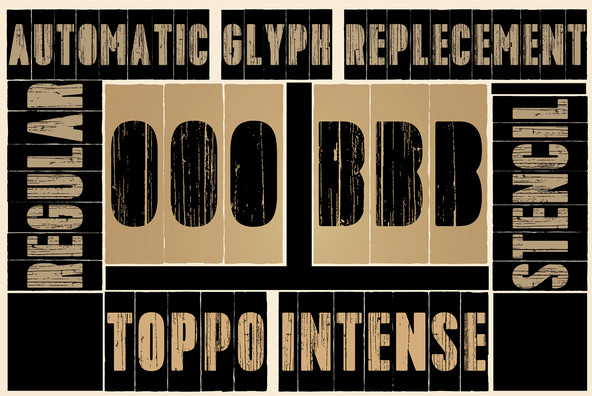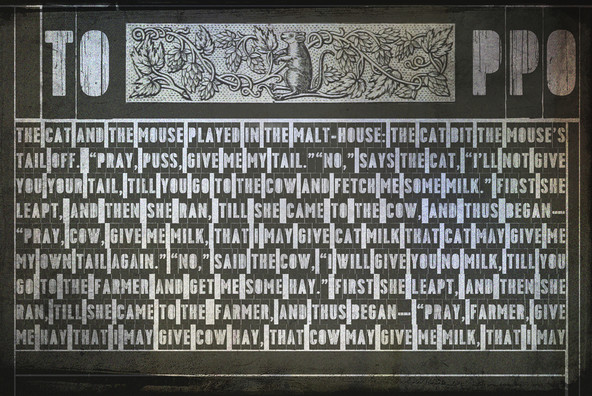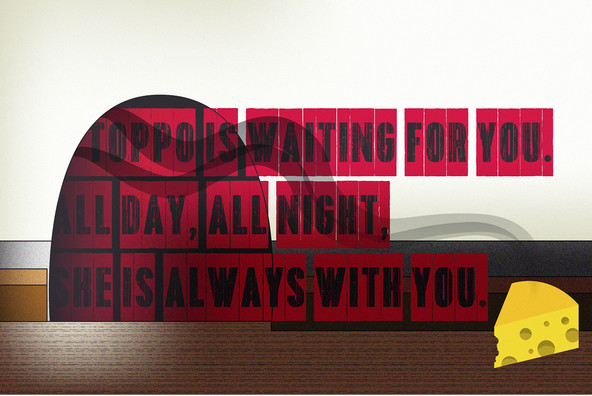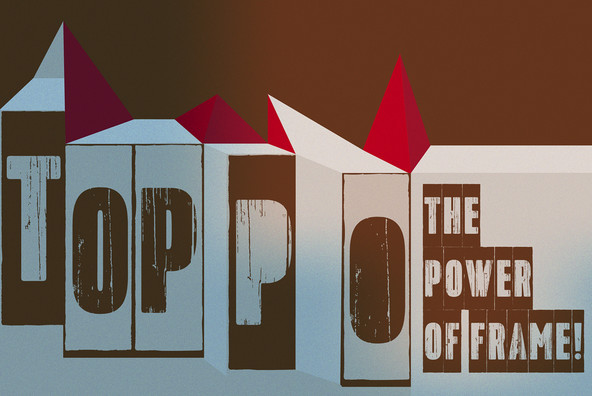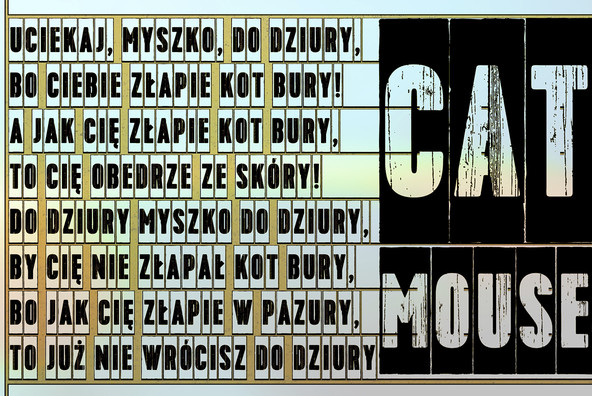
Toppo Font
Toppo Regular
Toppo Frame
Toppo Negative
Toppo Stencil
Toppo Stencil Frame
Toppo Stencil Negative
To design a font Toppo I was inspired by a You And Me
Monthly published by National Magazines Publisher
RSW Prasa that appeared from Mai 1960 till December 1973 in Poland.
Family contains 6 different styles.
Toppo family, every variety contains 3 alternative characters with automatic replacement.